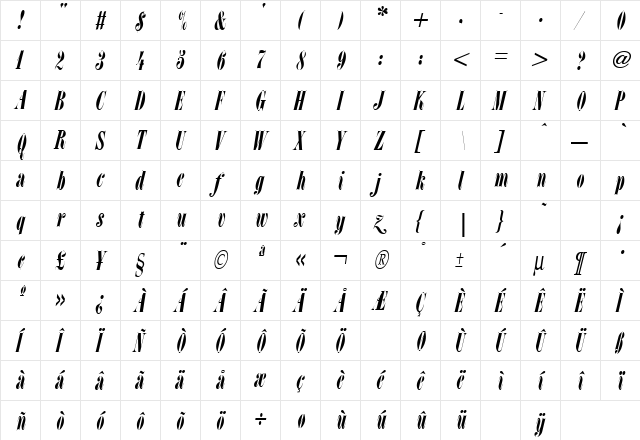
L Italic
Design Context for L Typeface
L is a composed and adaptable typeface that performs quietly and consistently across a wide range of design contexts. The dynamic lean of this cut emphasises speed and emphasis in any layout.
Pro Tip: Try L for annotation and caption copy alongside an upright companion — the contrast in angle creates a dynamic but ordered typographic system.